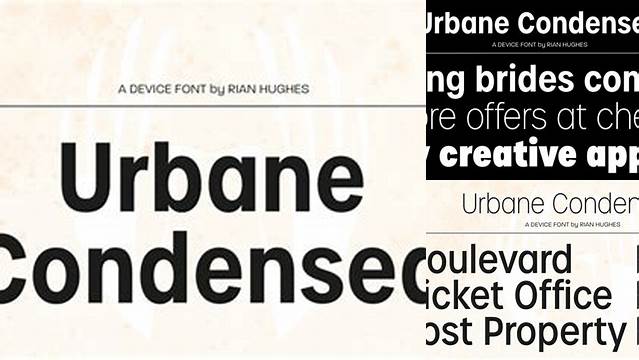
Unveiling the Urbane Condensed Light Font: A Designer's Dream
The world of typography is vast and ever-evolving, and finding the perfect font can sometimes feel like searching for a needle in a haystack. But fear not, fellow creatives! Today, we're diving deep into the wonderful realm of the Urbane Condensed Light font, a truly exceptional typeface that's been making waves in the design community. If you're on the hunt for a font that exudes modern sophistication, clean lines, and a touch of understated elegance, then you've come to the right place. This article is your ultimate guide to understanding what makes this font so special and, crucially, how you can get your hands on a free download to elevate your next project. We'll explore its characteristics, best use cases, and the simple steps to incorporate it into your design arsenal. So, buckle up, designers, because we're about to uncover a gem that might just become your new go-to!
Why Choose Urbane Condensed Light? The Allure of Clean Typography
So, what's the big deal about the Urbane Condensed Light font, you ask? Well, guys, it’s all about its striking balance between modern aesthetics and functional readability. In a world flooded with visual information, clarity is king. This font delivers just that. The 'condensed' nature means it takes up less horizontal space, making it incredibly versatile for layouts where real estate is precious – think website headers, tight print designs, or even app interfaces. The 'light' weight, as the name suggests, offers a delicate, airy feel, avoiding the heaviness that can sometimes bog down a design. It’s elegant without being flimsy, professional without being stuffy. This thoughtful combination makes Urbane Condensed Light a fantastic choice for brands looking to project a contemporary and sophisticated image. Whether you're designing a sleek corporate brochure, a minimalist wedding invitation, or a cutting-edge digital ad, this font can lend an air of refined professionalism that’s hard to ignore. We'll explore more about its specific applications later, but for now, just imagine the possibilities this clean and stylish typeface can unlock for your creative endeavors. It’s the kind of font that whispers quality rather than shouting it, and that’s a powerful design tool in itself.
Exploring the Nuances: Characteristics of Urbane Condensed Light
Let's get down to the nitty-gritty of what makes the Urbane Condensed Light font tick. When we talk about its 'condensed' nature, we're referring to its narrower letterforms compared to a standard typeface. This design choice is brilliant for fitting more text into a given space without sacrificing readability, a crucial factor for both print and digital design. Think of it as a space-saving superhero for your typography needs. Then there’s the 'light' aspect. This refers to the font's weight, which is significantly thinner than a regular or bold variant. This lightness imparts a sense of sophistication, airiness, and modern elegance. It’s perfect for creating a refined look, especially when used for headlines, subheadings, or short bursts of text where you want to draw attention without overwhelming the viewer. The strokes are clean and precise, with a consistent thickness that ensures legibility even at smaller sizes. The overall impression is one of understated luxury and contemporary style. It’s not overly decorative, which means it plays well with other design elements, allowing your visuals to shine. The clean sans-serif structure ensures it feels current and accessible, bridging the gap between avant-garde and timeless design. This attention to detail in its form is what makes the Urbane Condensed Light font such a valuable asset in any designer's toolkit, guys. Its inherent clarity and stylish profile are simply unmatched.
Applying Urbane Condensed Light: Perfect Use Cases for Designers
Now that you've got the Urbane Condensed Light font downloaded and installed, the real fun begins: using it! This font truly shines in a variety of applications, making it a versatile choice for many design scenarios. Let's talk about some prime use cases, guys. Headlines and Titles are an obvious win. Its condensed and light nature makes it incredibly effective for grabbing attention without taking up too much space. Imagine bold, impactful headlines on a website or in a magazine spread – this font nails that modern, sophisticated look. Logos and Branding are another area where Urbane Condensed Light excels. For businesses aiming for a clean, minimalist, and premium feel, this font can form the backbone of a memorable brand identity. Its legibility ensures that the brand name is easily readable, while its elegant style conveys professionalism and trustworthiness. Short-form Copy such as subheadings, captions, or pull quotes can benefit immensely. The light weight ensures it doesn't overpower the main text, providing a subtle yet distinct visual hierarchy. Think of it as the stylish accent piece that complements the main narrative. User Interfaces (UI) and App Design also find a great ally in this font. Its condensed form is perfect for fitting text into constrained digital spaces, and its clean lines contribute to a user-friendly and modern interface. It looks great in navigation bars, buttons, and informational text. Even for Invitations and Stationery, like wedding invites or elegant event cards, this font can add a touch of chic sophistication. It balances formality with a contemporary edge. Remember, the key is to leverage its strengths: its space-saving qualities, its elegant lightness, and its overall modern appeal. Don't be afraid to experiment and see where it fits best in your creative workflow!
Pairing Urbane Condensed Light: Complementary Typeface Combinations
Choosing the right font is only half the battle; the other half is knowing how to pair it effectively. The Urbane Condensed Light font, with its distinct style, requires thoughtful companions to truly sing. When you're working with this elegant, condensed typeface, you'll want to pair it with fonts that complement its strengths without competing. A fantastic strategy is to pair it with a more humanist or geometric sans-serif in a regular or bold weight. This creates a beautiful contrast in form and weight, ensuring visual interest. For example, pairing Urbane Condensed Light for your headlines with a font like Open Sans, Lato, or Montserrat for body text can work wonders. The Urbane provides the sleek, modern punch, while the other fonts offer excellent readability for longer passages of text. Another solid approach is to introduce a serif font to add a touch of classic warmth or contrast. Imagine using Urbane Condensed Light for your modern branding elements and then pairing it with a sophisticated serif like Merriweather or Lora for descriptive text or blog posts. This juxtaposition can be incredibly effective, blending contemporary and traditional design elements seamlessly. The key, guys, is to create a clear typographic hierarchy. Use Urbane Condensed Light for emphasis – its headlines, key phrases, or call-to-action buttons. Then, let a more traditional or robust font handle the bulk of the content. Always consider the overall mood and message you want to convey. Does the pairing feel balanced? Is it readable? Does it align with the project's aesthetic? Experimentation is key, but starting with these tried-and-true pairing strategies will set you on the right path to creating visually harmonious and impactful designs. It's all about creating a dialogue between your chosen typefaces, and Urbane Condensed Light is a great conversation starter.
Maximizing Readability with Urbane Condensed Light: Tips and Tricks
Even the most stylish font can fall flat if it’s not used correctly, especially when it comes to readability. The Urbane Condensed Light font, with its unique condensed and light characteristics, requires a thoughtful approach to ensure your message gets across loud and clear. So, how do we maximize readability, guys? First off, consider the size. While Urbane Condensed Light looks stunning in larger point sizes for headlines, it can become challenging to read in very small sizes, especially for extended body text. For longer paragraphs, it's often best to pair it with a more standard or robust font that offers better legibility for dense copy. Use Urbane Condensed Light strategically for shorter texts – think subheadings, captions, or call-to-action buttons where its impact is most effective. Secondly, mind the line spacing (leading). Because the letterforms are condensed, they can sometimes appear closer together horizontally. To compensate and ensure comfortable reading, slightly increase the line spacing. This gives the text 'breathing room' and prevents the descenders and ascenders of adjacent lines from clashing visually. A general rule of thumb is to increase leading by about 1.2 to 1.5 times the point size of your text, but always adjust based on visual appeal. Thirdly, color contrast is your friend. Ensure there’s sufficient contrast between the font color and the background color. A light font on a light background, or dark on dark, will make reading incredibly difficult. Aim for high contrast for optimal legibility, especially for digital applications. Finally, test, test, test! View your design on different screens and even print it out if possible. What looks good on your high-resolution monitor might appear differently elsewhere. Pay attention to how easily users can scan and comprehend the text. By implementing these tips, you can harness the stylish appeal of Urbane Condensed Light without compromising the clarity and accessibility of your content. It's all about finding that sweet spot between style and substance, guys!
Final Thoughts on Your Urbane Condensed Light Font Journey
Well, we've journeyed through the world of the Urbane Condensed Light font, from its download basics to its sophisticated applications. You now know why this font is a standout choice for designers seeking a blend of modern elegance and functional efficiency. Its condensed form is perfect for making an impact in tight spaces, while its light weight lends an air of refined sophistication. Remember the importance of checking licenses, using it judiciously for readability, and pairing it thoughtfully with complementary typefaces. Whether you're designing a sleek website, a professional brand identity, or eye-catching marketing materials, the Urbane Condensed Light font can be a powerful addition to your typographic toolkit. So go ahead, explore those reputable download sites, grab your free copy, and start experimenting. Don't forget to apply the tips we've discussed regarding size, spacing, and contrast to ensure maximum legibility and visual appeal. We hope this guide has equipped you with the knowledge and inspiration you need to make the most of this fantastic font. Happy designing, guys! May your layouts be clean, your headlines bold, and your typography impeccable. Now go create something amazing!